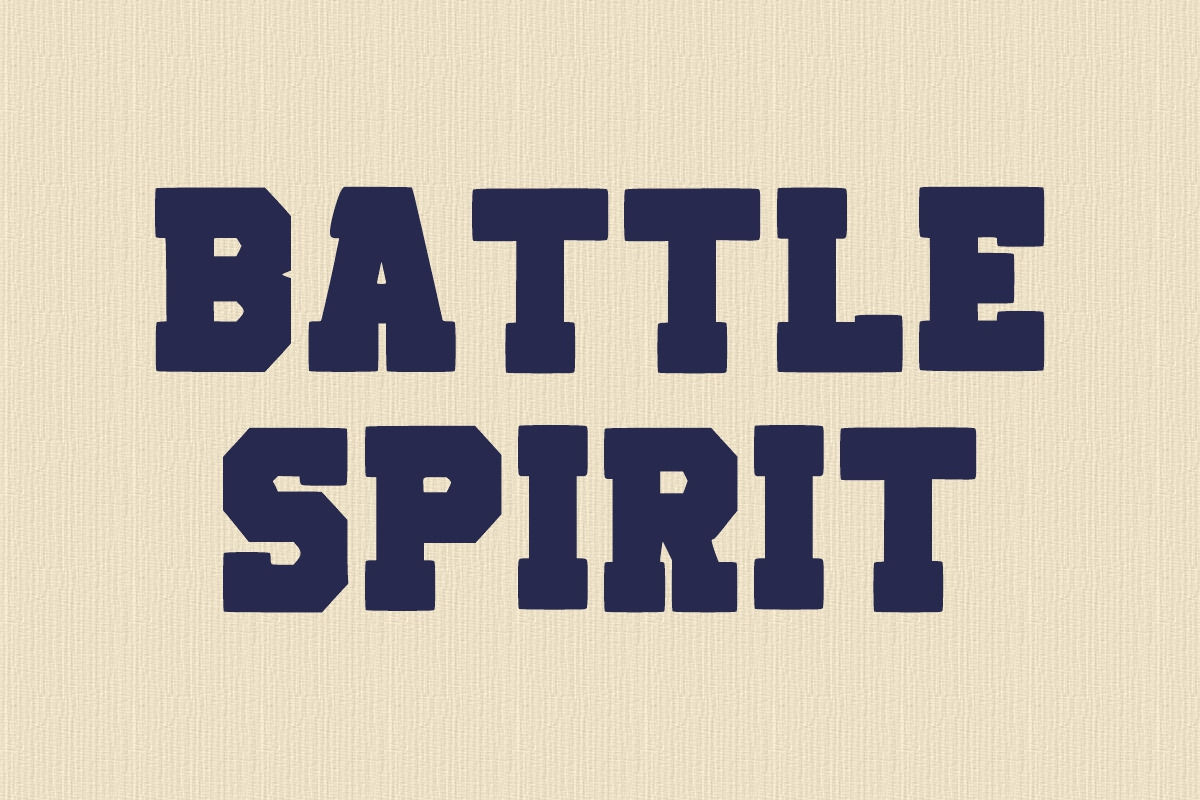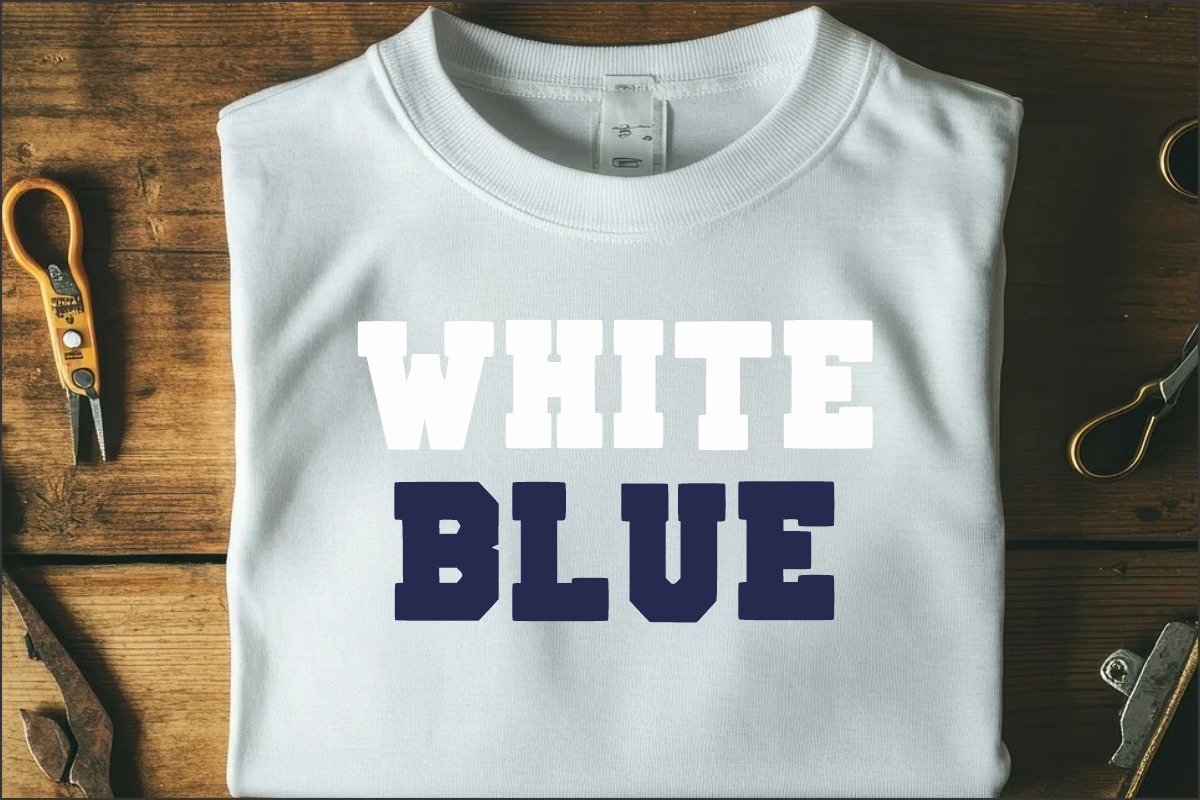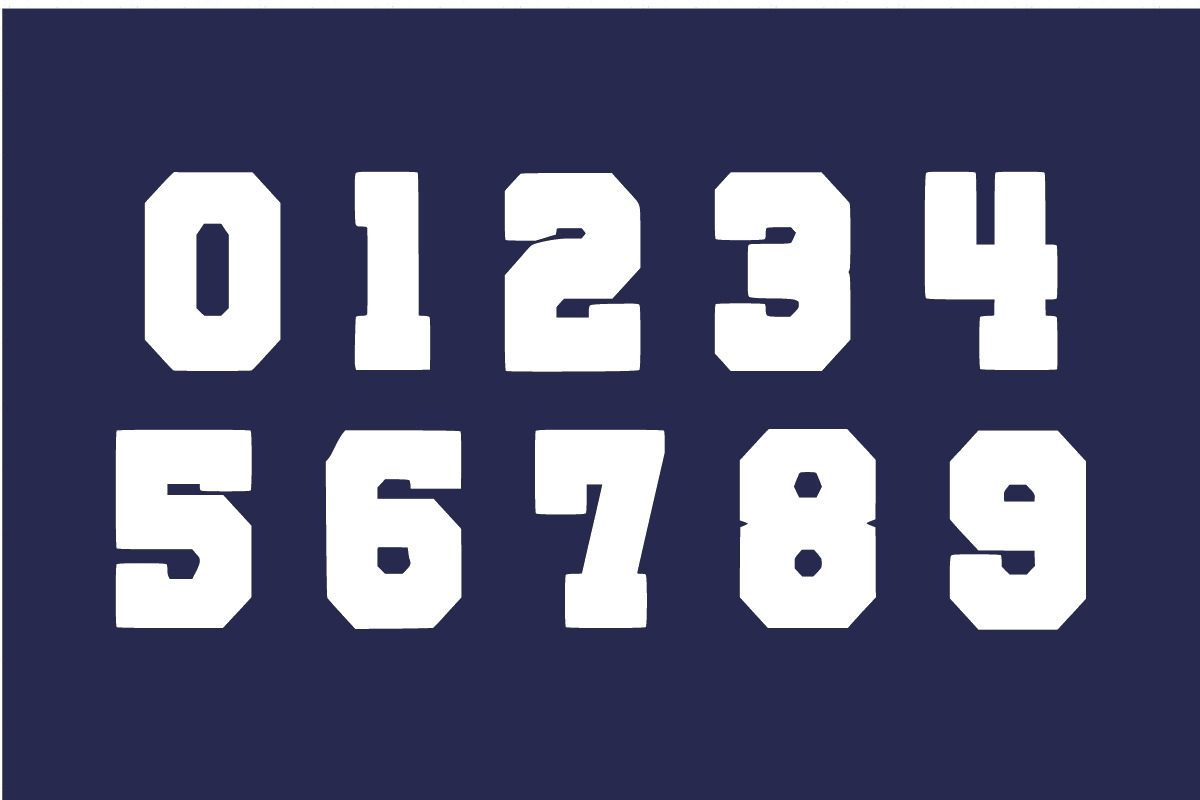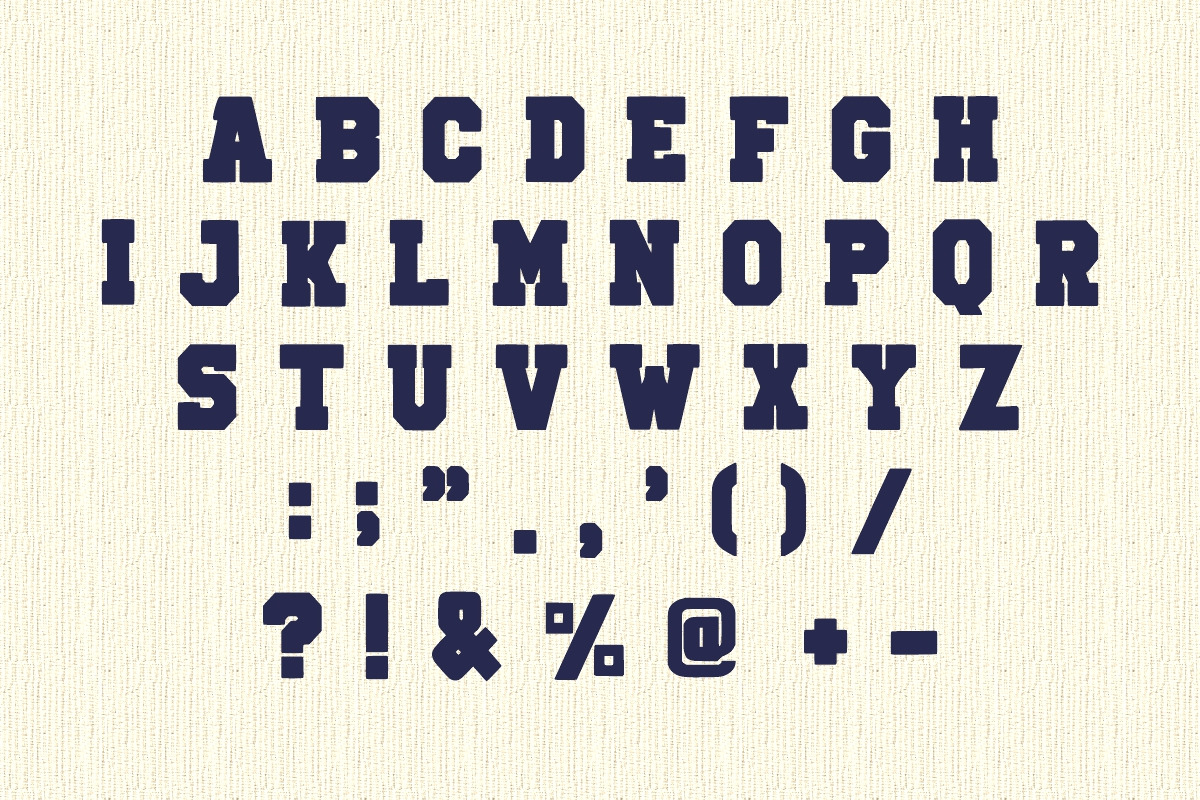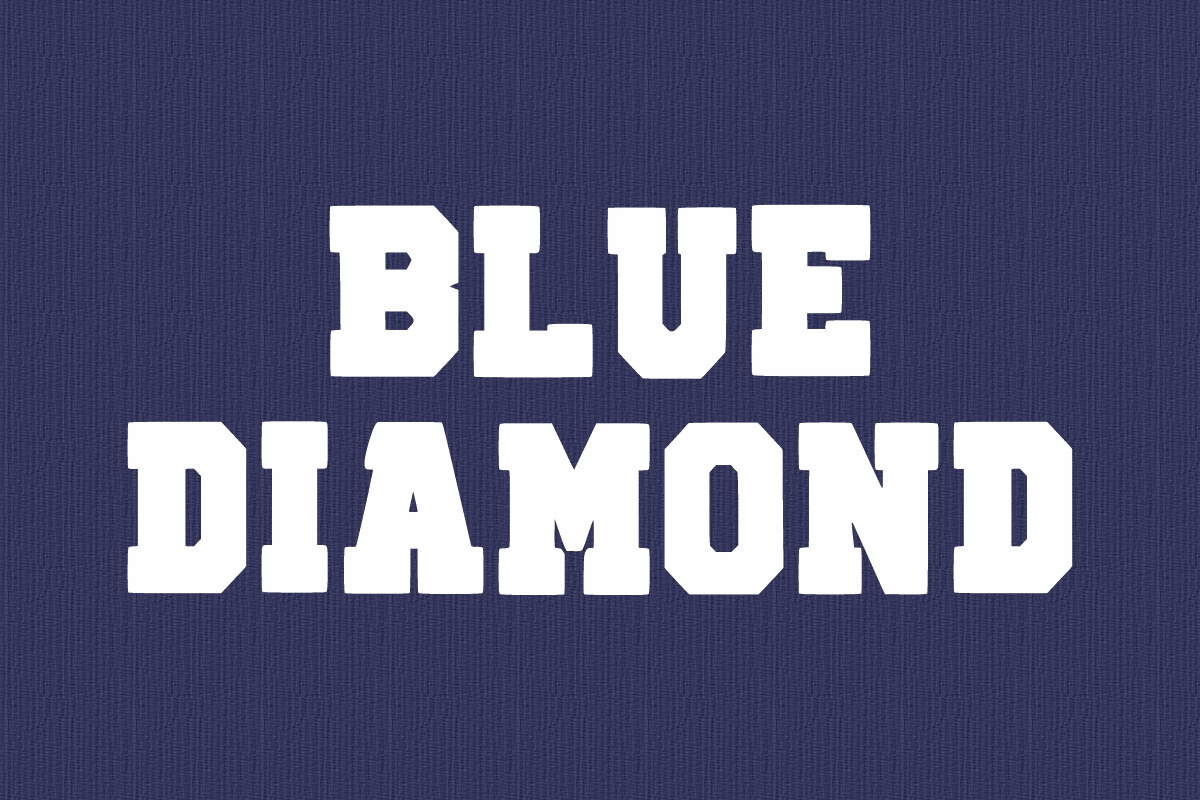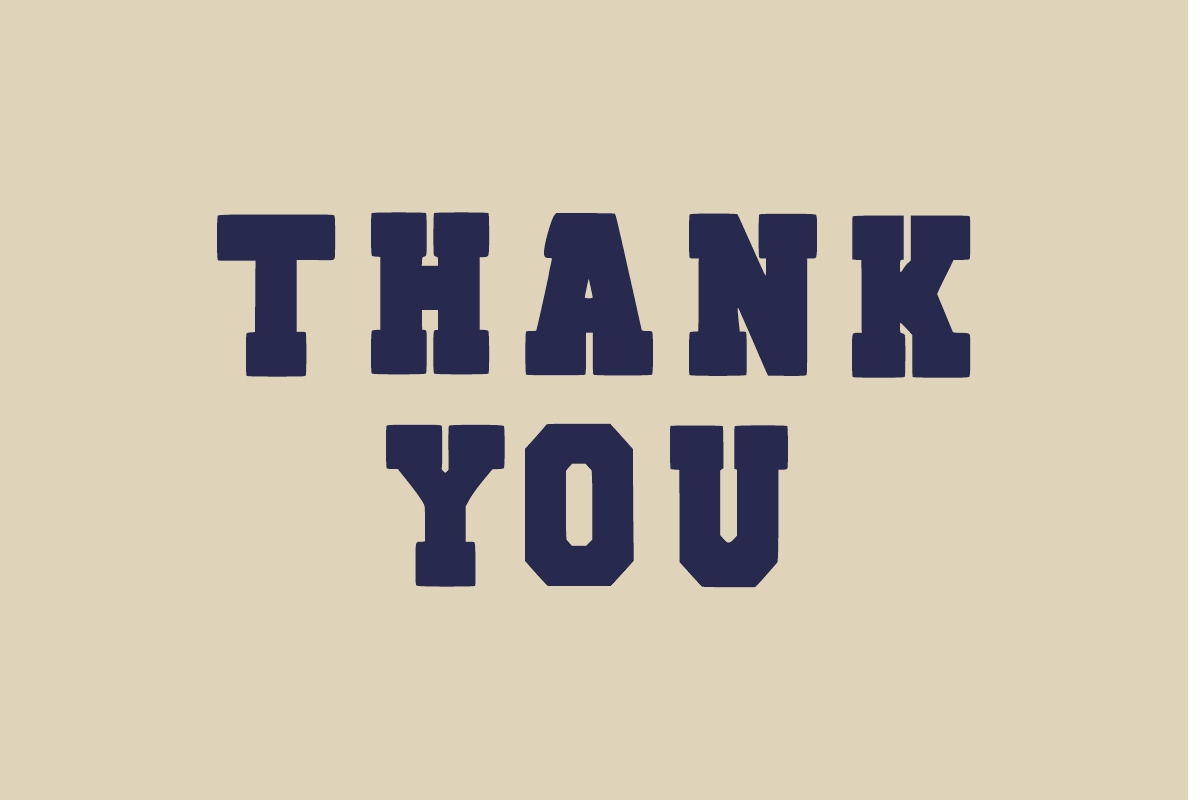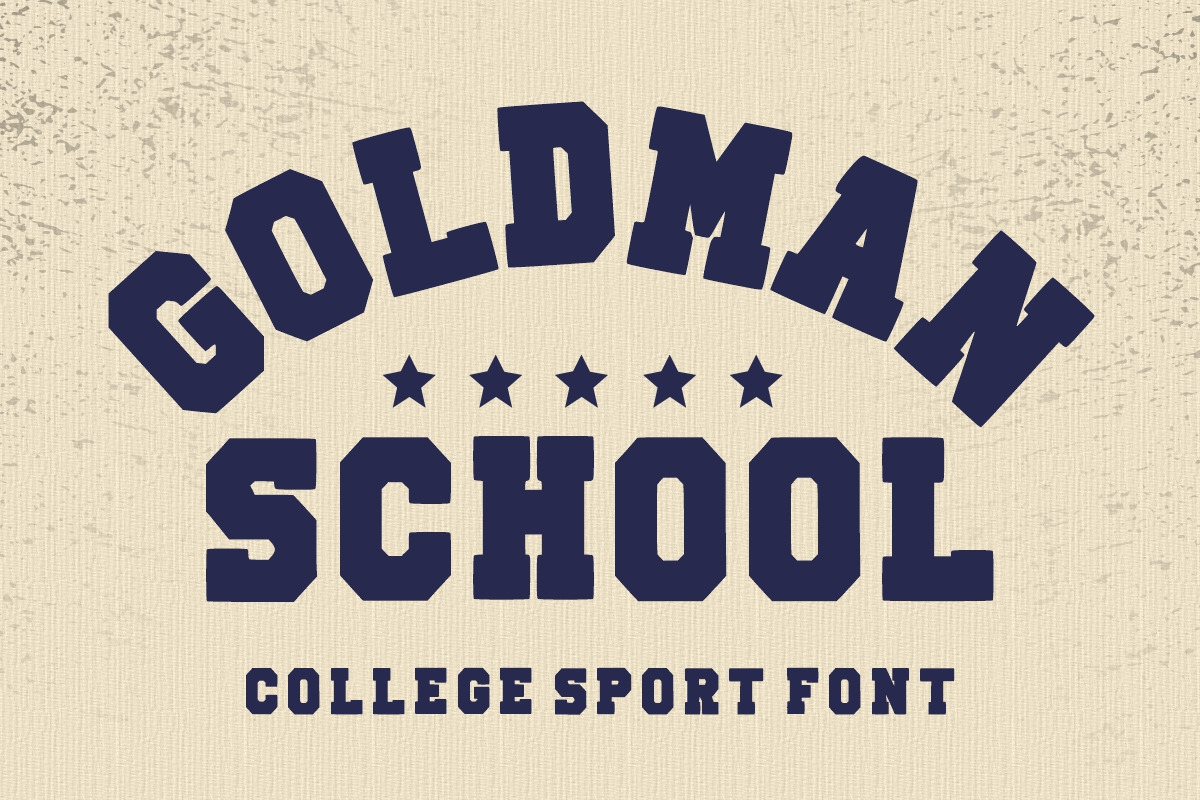
Goldman School Sport College Font
Goldman School is a sport college font that is made for any professional project branding, such as poster, branding, logo brand, promotions, product packaging, and more. Every letter has a bold vintage design